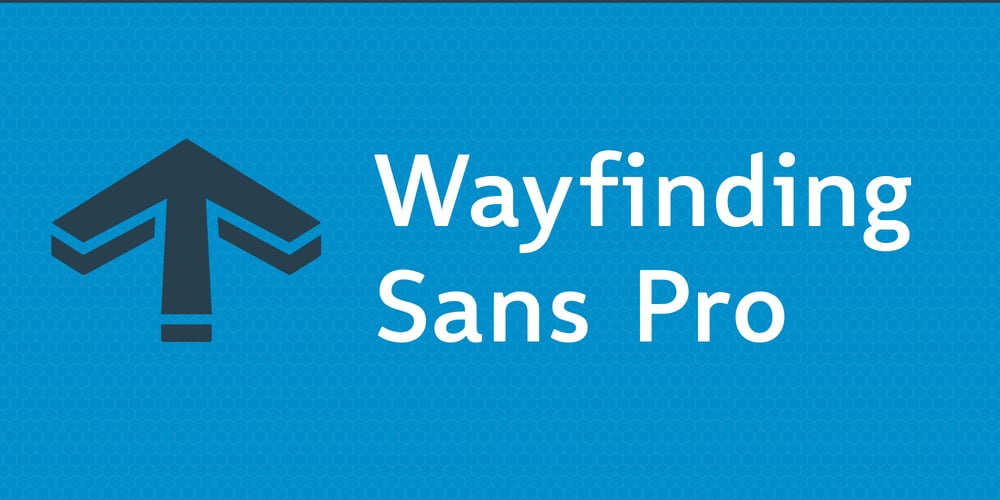
Wayfinding Sans Pro Font Family was designed by Ralf Herrmann, Sebastian Nagel and published by FDI. Wayfinding Sans Pro contains 20 styles and family package options. Ralf Herrmann, the designer of Wayfinding Sans, started this project with extensive field studies, driving tens of thousands of miles to explore the legibility of road signage typefaces in dozens of countries around the world. After building his own theoretical framework of relevant legibility parameters, the design process used a unique custom real-time simulation software, which could simulate difficult reading conditions (distance, fog, halation, positive/negative contrast) while the letters were actually being designed. This process made it possible to optimize even the tiniest details of each letter for maximum legibility. Being made specifically for wayfinding purposes, this type family does not compromise on any aspect of legibility — and yet, the typeface is a beautiful, clean and modern sans serif. With its broad language support and the large number of available styles it is perfectly suitable for any possible signage project anywhere in the world. In an independent empirical study at the University of Applied Sciences “htw” in Berlin different typefaces were recently tested when used on signs and Wayfinding Sans Pro was the winner in all conducted tests, being significantly more legible and therefore superior to all other styles of the tested typefaces. Check out the PDF specimen for more information: wayfinding-sans-pro.pdf